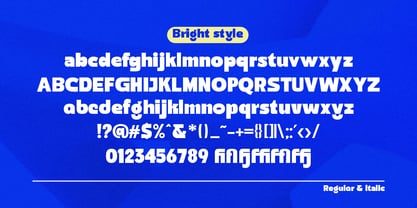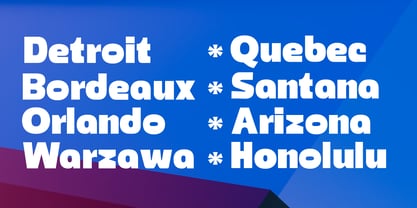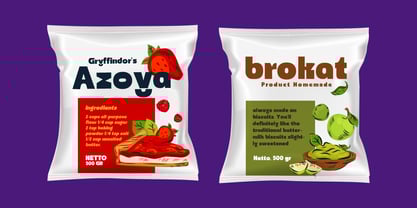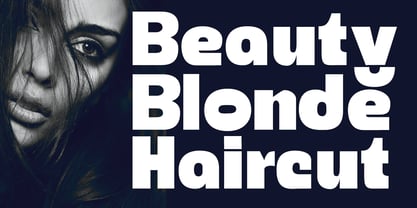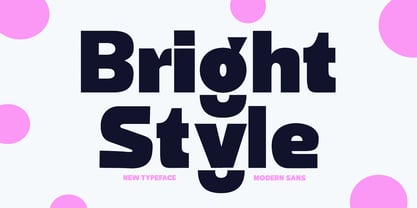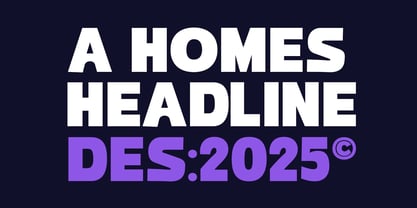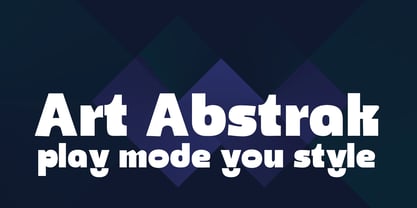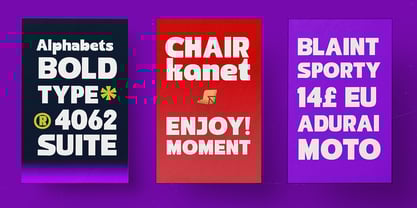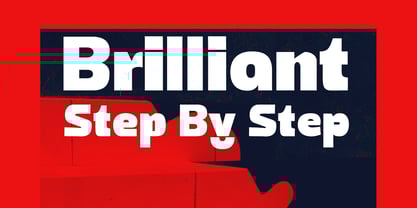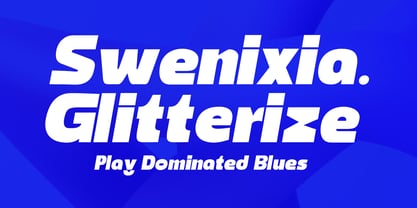
Bright Style
by Gatype
The Bright Style Font Family was designed by khaidir and published by Gatype. Bright Style contains 2 styles and family package options.
Bring Style is a beauty Sans Font look. This font is suitable for invitation cards, decorations, clothing products, greeting cards and more. This font also has uppercase, lowercase, numbers, punctuation and multilingual. and there are several alternative ligatures and styles. Multilingual Support . Bring Style. . Bring Style Italic. You've surely found inspiration that you can combine with your creativity!